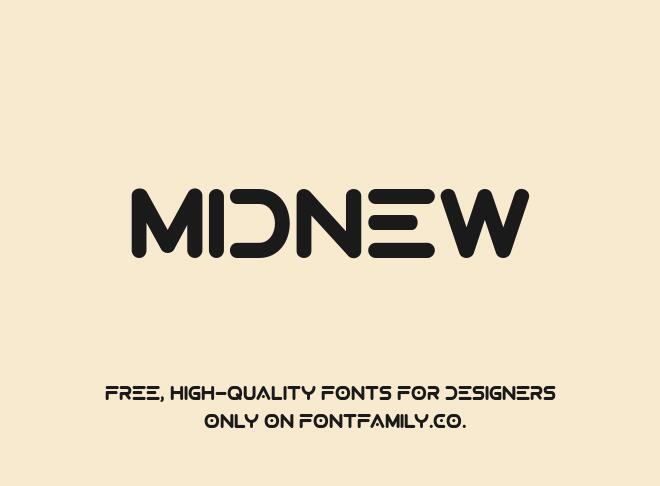
Midnew Font
Introducing Midnew Font, a modern geometric typeface with a clean, crisp look. This sans-serif font draws inspiration from the popular minimalistic design trend and offers a contemporary touch to any design project. Midnew Font is perfect for display use, making it an ideal choice for headlines, logos, and branding. Its clear, legible characters make it suitable for both print and digital media. Compared to other fonts in the geometric category, Midnew Font stands out with its unique character design and high readability. Whether you're a professional designer or a novice, you'll appreciate the versatility and elegance of Midnew Font. This font is a great choice for those who desire a modern and sophisticated look in their design work.